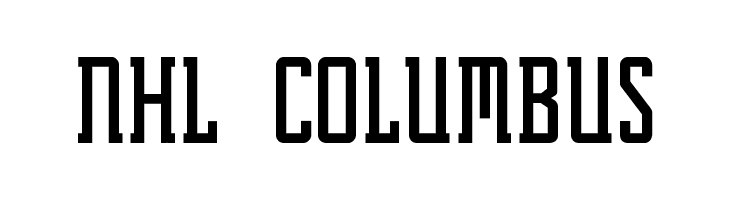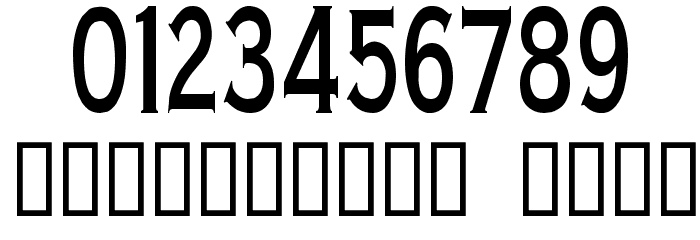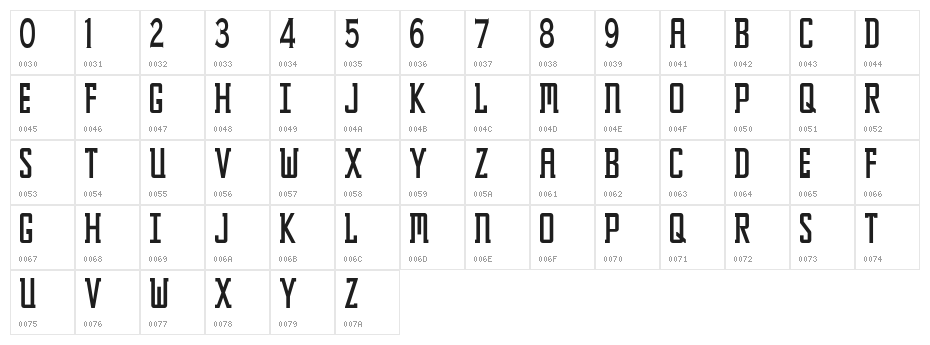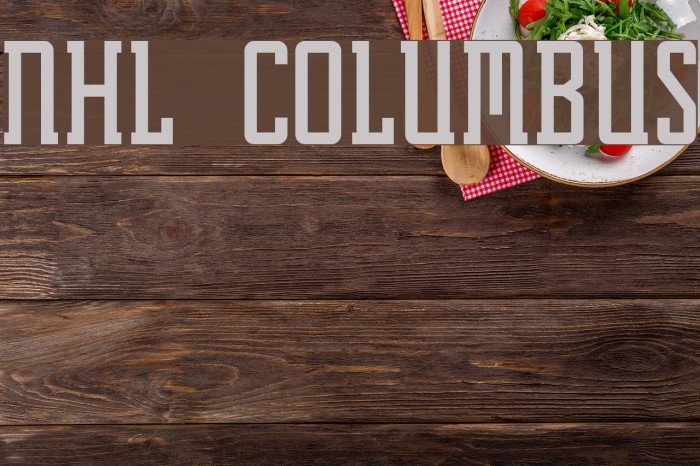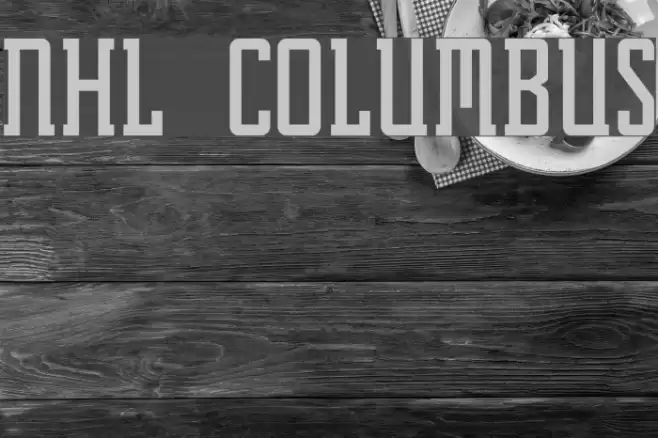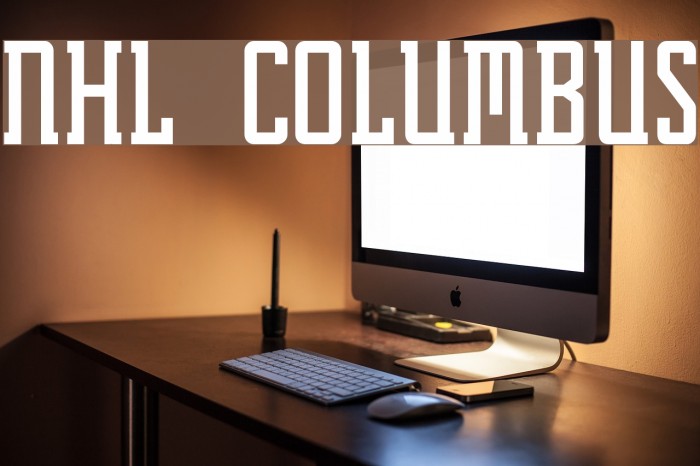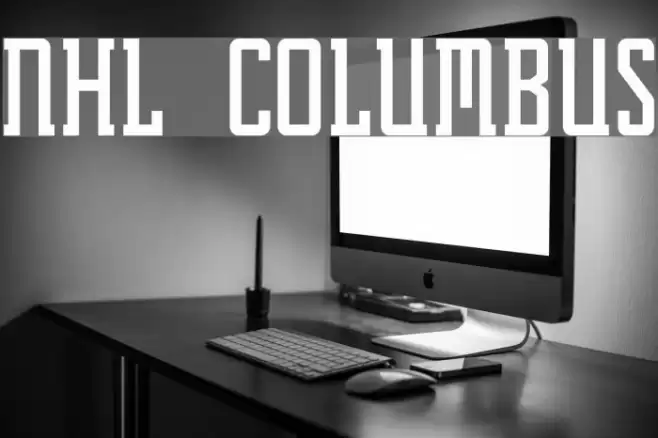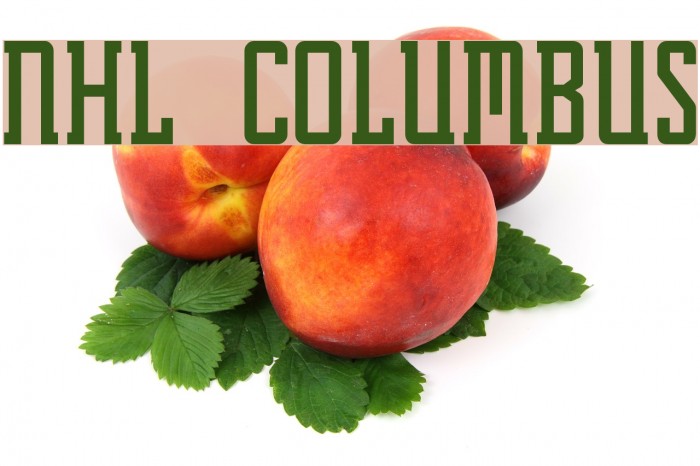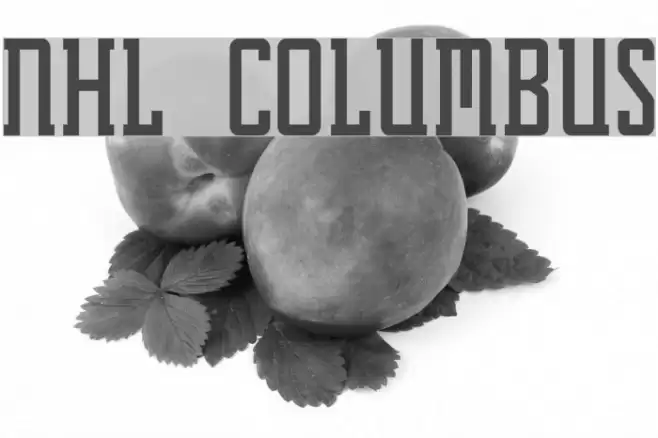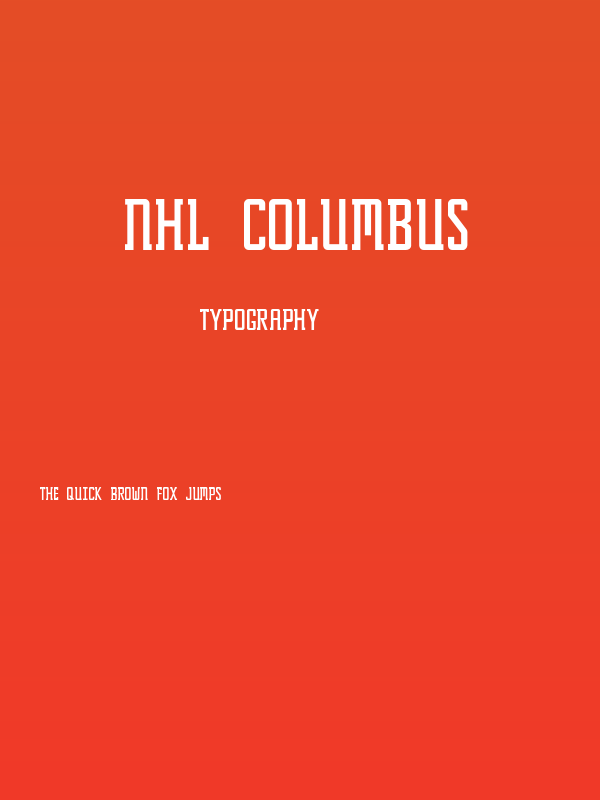
NHL Columbus Font
NHL Columbus Description
This font features a bold and robust design with a strong presence, characterized by its blocky and angular letterforms. The uppercase letters are particularly striking, with a uniform height and width that convey a sense of stability and strength. The numbers follow a similar style, maintaining the bold and structured appearance. The font lacks lowercase letters and special characters, focusing instead on delivering a powerful and straightforward visual impact. Its geometric shapes and consistent line thickness make it ideal for applications where clarity and emphasis are paramount.
| Proposed Projects | Ideal for sports team branding, signage, posters, and any project requiring a bold, impactful typeface. |